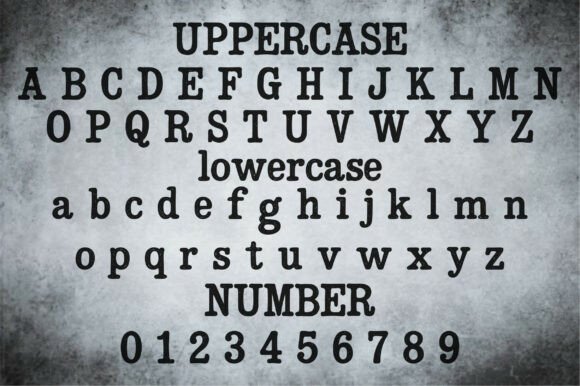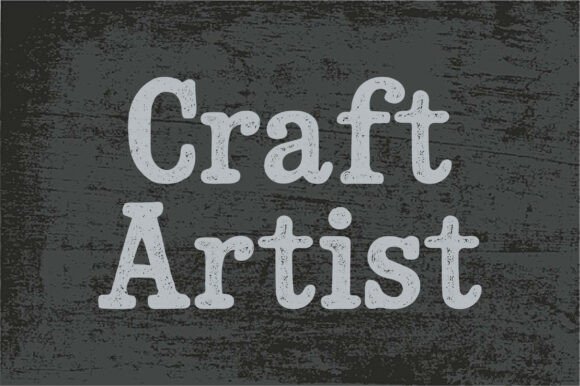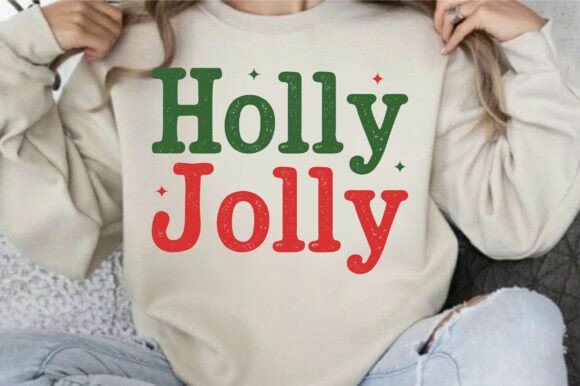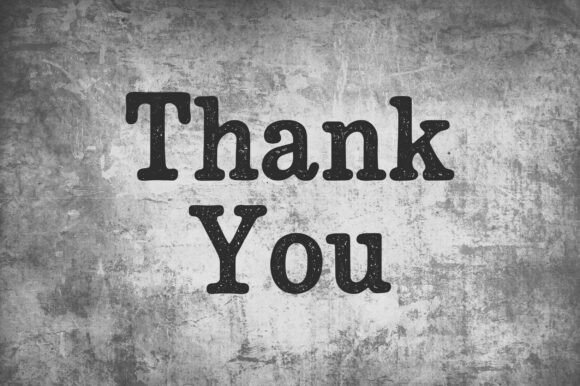
Introduction to Rough Stamp Font
Have you ever stumbled upon an old, worn-out sign or a vintage t-shirt with a distressed font that just screams ‘I’ve got a story to tell’? That’s exactly the kind of creative spark that the Rough Stamp Font is designed to ignite. This bold and rugged distressed typeface is a design resource that will give your projects a strong grunge or rustic feel, making it perfect for vintage logos, T-shirts, posters, labels, and more.
What makes the Rough Stamp Font so valuable for designers is its ability to add a touch of authenticity to any project. With its handcrafted, rough details, this font is sure to give your designs a worn look that’s both bold and readable. Whether you’re working on a high-quality design for a client or a personal creative project, the Rough Stamp Font is a great choice for designers who love gritty, retro typography.
Key Features of Rough Stamp Font
- Unique Texture: The Rough Stamp Font features a distressed texture that gives your designs a worn, vintage look.
- High-Quality Design: This font is designed to be a valuable design resource for any creative project, with a high level of detail and realism.
- Perfect for Creative Projects: The Rough Stamp Font is ideal for use in creative projects such as branding, packaging, and advertising, where a unique and eye-catching look is desired.
Honest Review: Rough Stamp Font
I recently stumbled upon the Rough Stamp Font, and I’m excited to share my thoughts on this design resource. As a designer, I’m always on the lookout for high-quality fonts that can elevate my creative projects.
Here are some of the key features that stood out to me:
- ✨ High-quality design: The Rough Stamp Font is beautifully crafted, with intricate details and textures that give it a truly unique look.
- ✨ Versatile: As I mentioned earlier, this font is perfect for a wide range of creative projects, from logos to packaging design.
- ⚠️ Limited character set: The Rough Stamp Font is a single font, which means it may not be suitable for projects that require a wide range of characters.
- ⚠️ May not be suitable for small text: Due to its rough texture, the font may be difficult to read in small sizes.
Overall, I’m impressed with the Rough Stamp Font. While it may have some limitations, its high-quality design and versatility make it a valuable addition to any designer’s toolkit. I would definitely recommend it for designers working on creative projects that require a unique, grungy look.
Rough Stamp Font